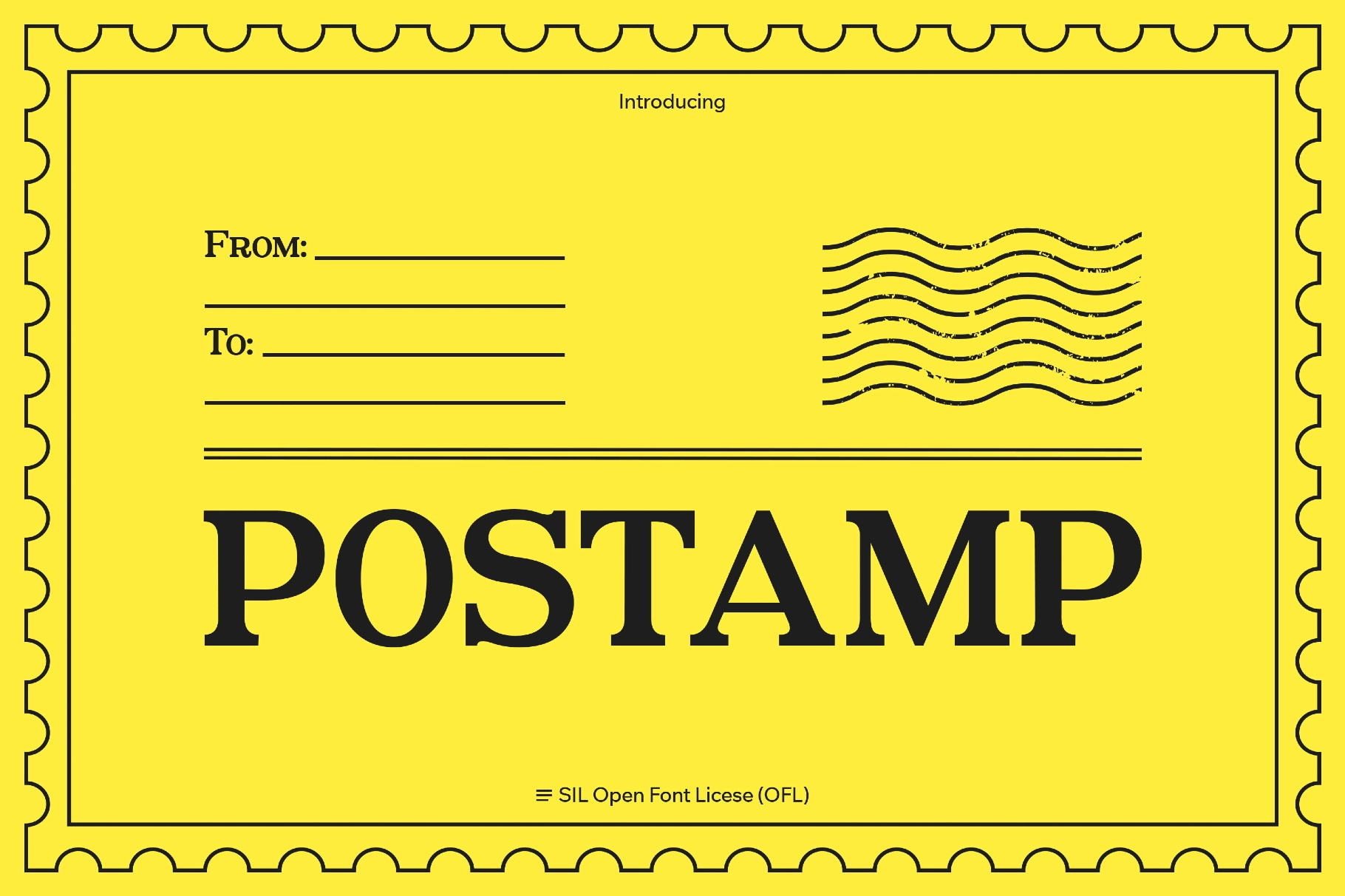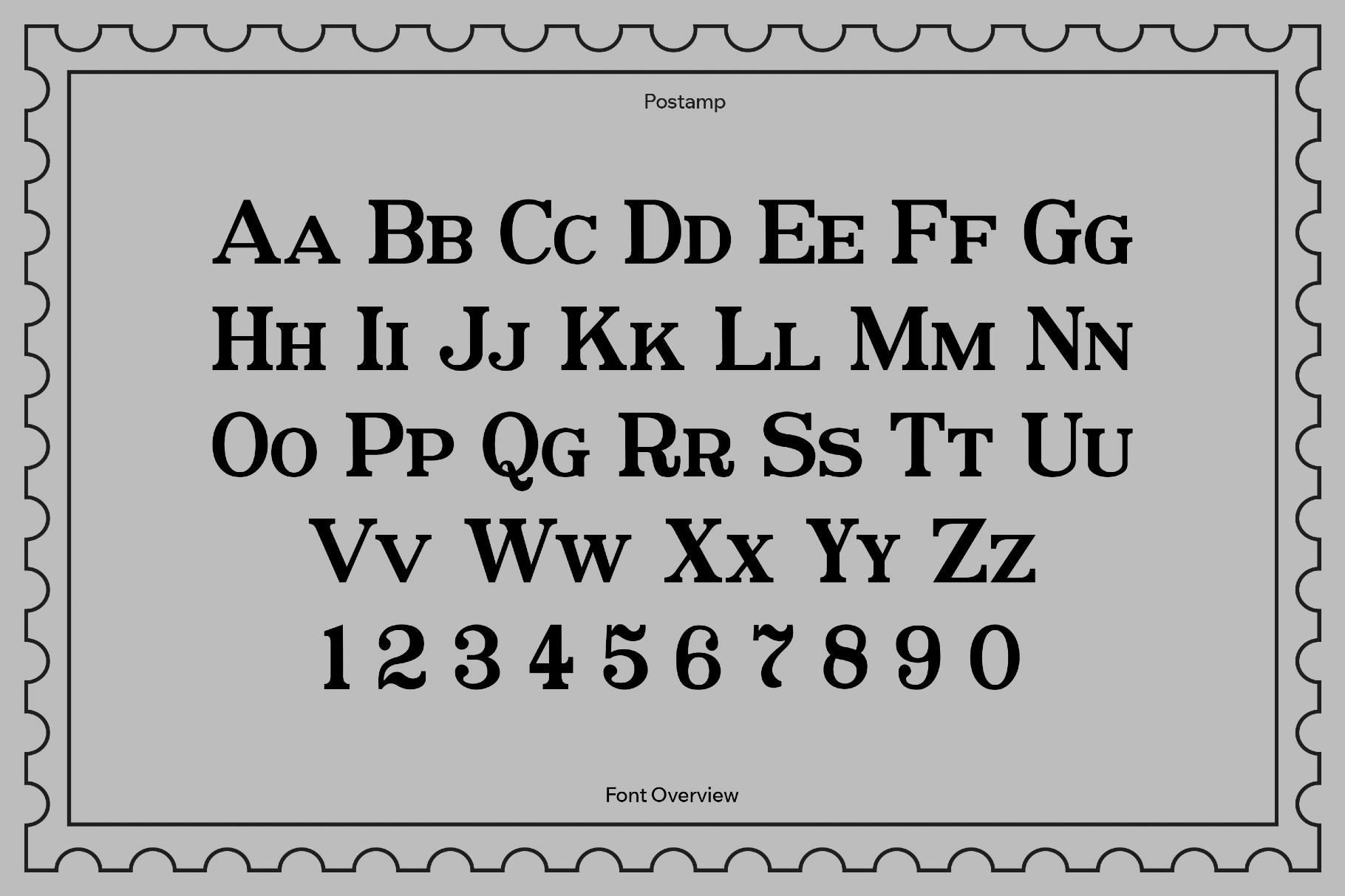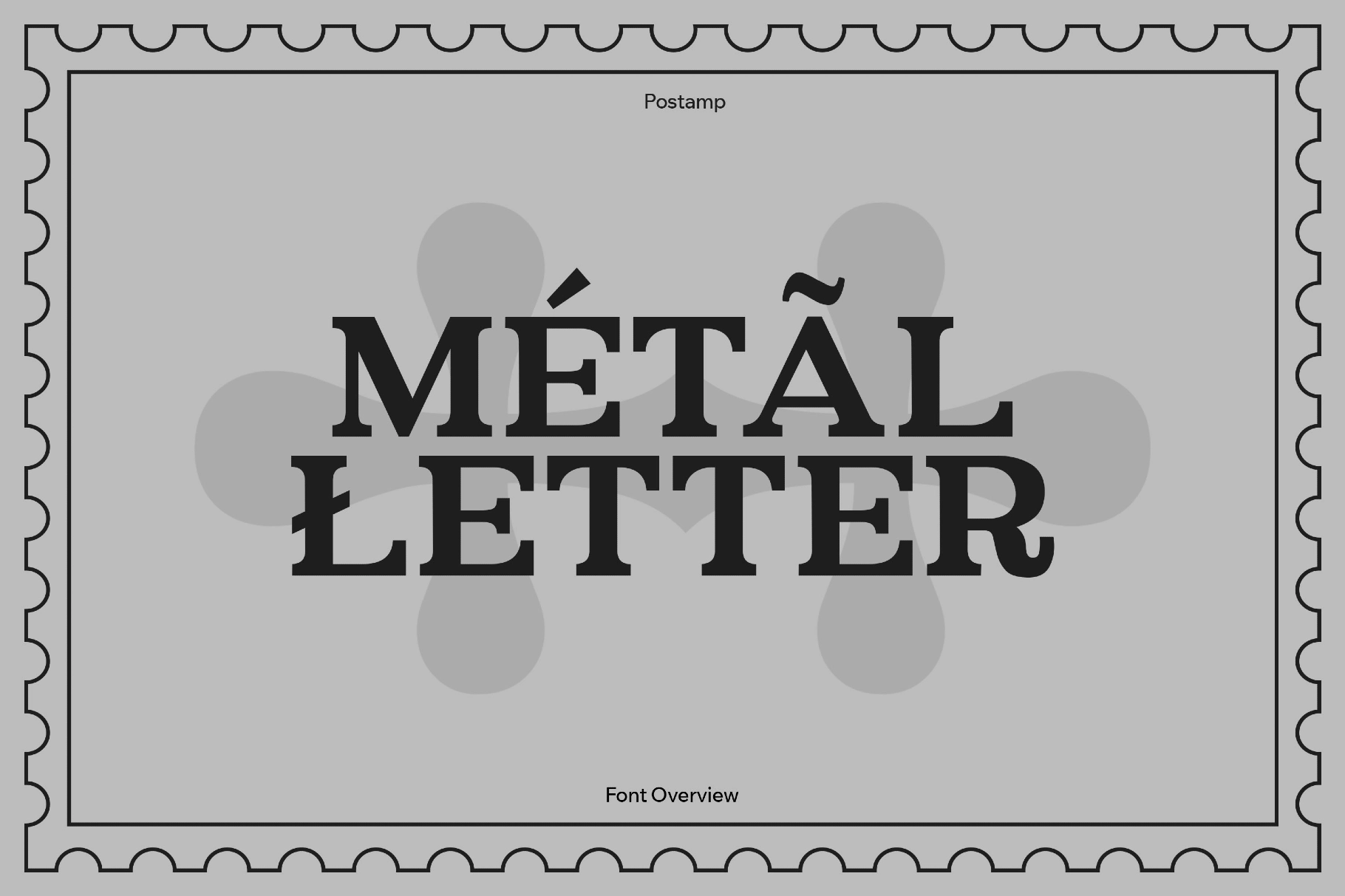
Postamt Font
Postamt Font is a digital typeface inspired by the metal letters on post office buildings. The capitals have sharp wedge serifs, square shoulders, and confident entry strokes. The lowercase sits compact and upright, keeping lines orderly. Slightly flared strokes and beaked terminals build up an editorial gravitas.
The typeface suits civic signage and plaques, literary jackets and chapter openers, government seals and certificates, museum exhibits and archival covers, postage-themed packaging and philatelic ephemera, editorial drop caps and pull quotes, brewery and distillery labels, railway posters and timetable headers, period film props and theater programs, festival posters, and premium packaging.